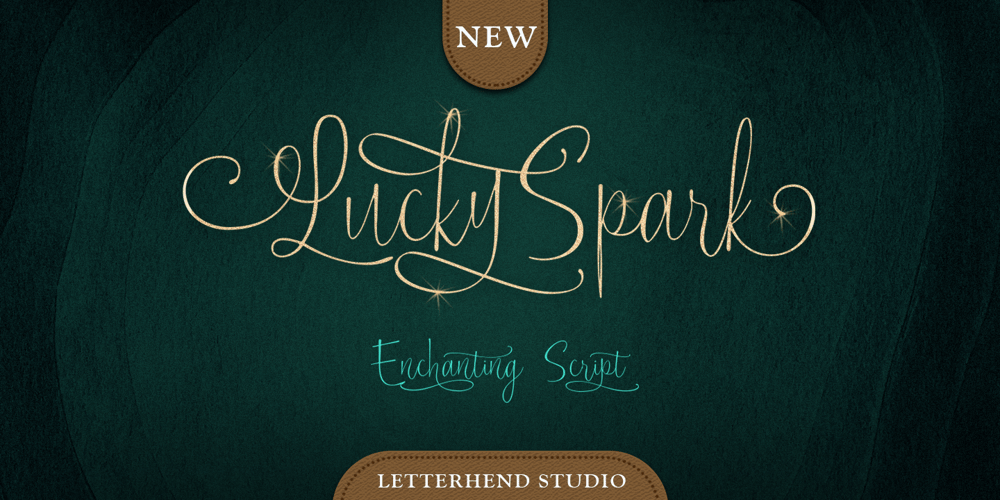
Lucky Spark
Lucky Spark font
Lucky Spark Font Family was designed by Hendry Juanda and published by Letterhend. Lucky Spark contains 1 styles and family package options. Introducing, Lucky Spark Script – an enchanting script. What makes this font unique than the other is its beautiful swashes which will make the lettering looks customized. This type of font perfectly made to be applied especially in logo, and the other various formal forms such as invitations, labels, logos, magazines, books, greeting / wedding cards, packaging, fashion, make up, stationery, novels, labels or any type of advertising purpose.Features : uppercase & lowercase numbers and punctuation multilingual alternates and ligatures swashes PUA encoded We highly recommend using a program that supports OpenType features and Glyphs panels like many of Adobe apps and Corel Draw, so you can see and access all Glyph variations.